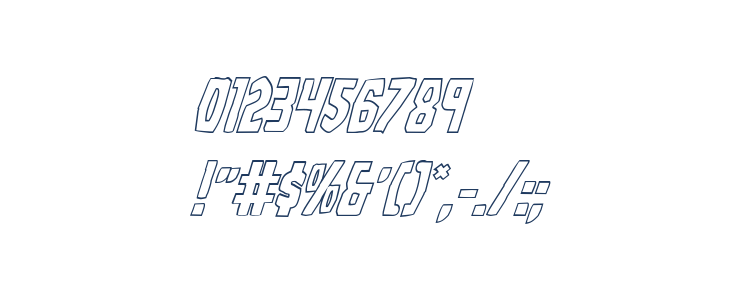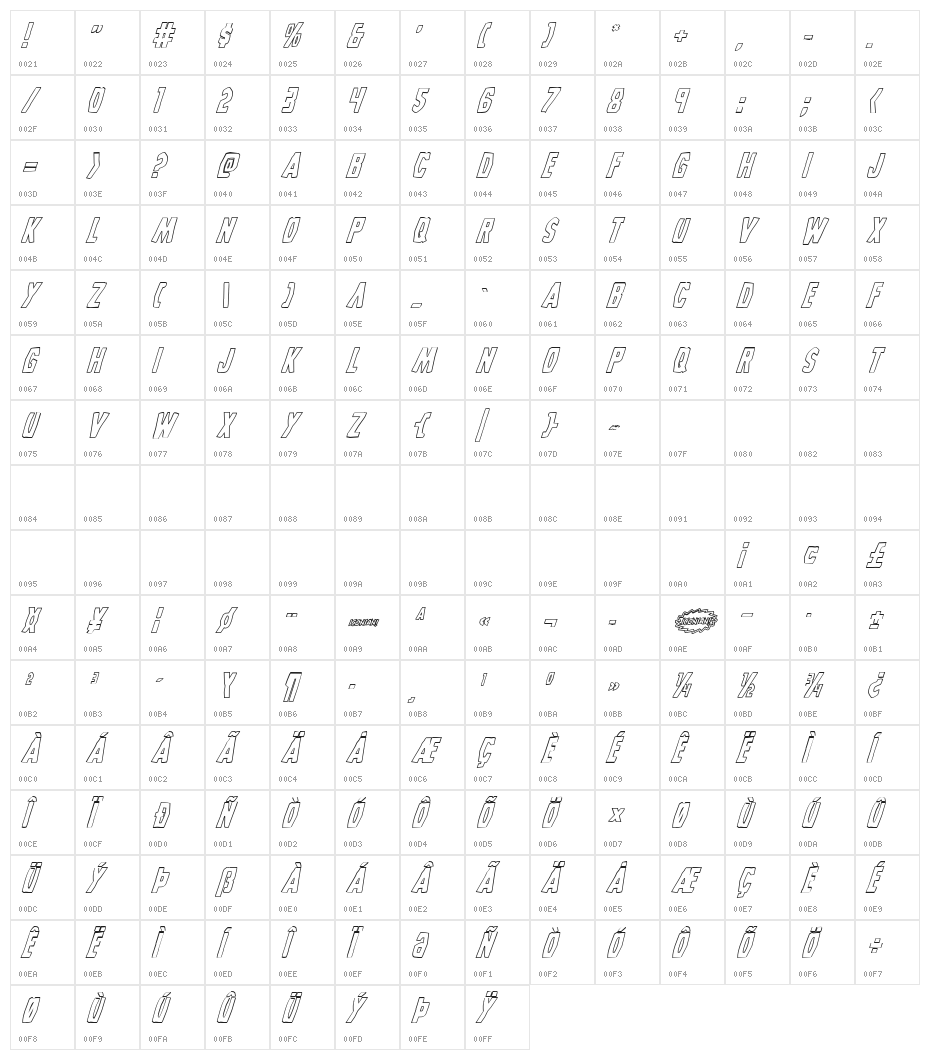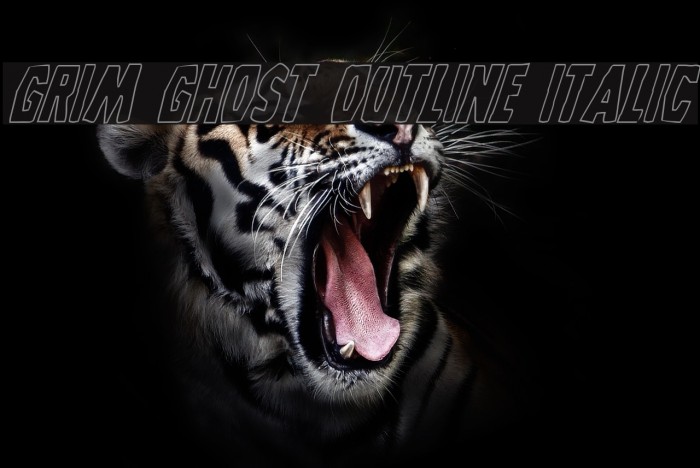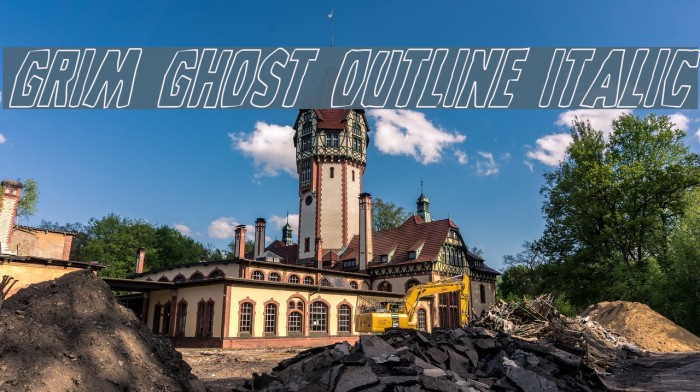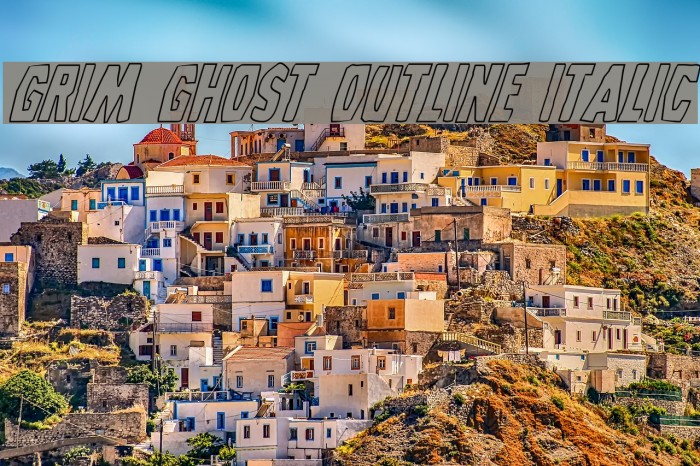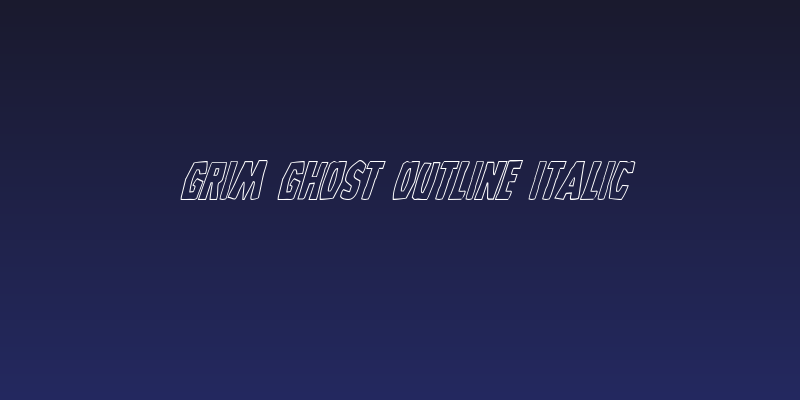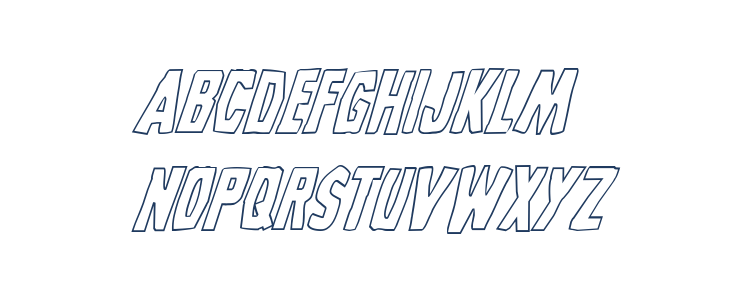
Grim Ghost Outline Italic Font
Grim Ghost Outline Italic Description
This font features a bold, outlined style with a distinct italic slant, giving it a dynamic and energetic appearance. The characters are uppercase and lowercase letters, numbers, and a variety of special symbols. The outline design adds a unique touch, making it stand out in any design project. Its boldness is balanced by the open spaces within each character, providing a sense of lightness despite the strong lines. The italic angle enhances the sense of movement and modernity, making it suitable for eye-catching headlines and creative designs.
| Proposed Projects | Ideal for posters, logos, and headlines where a bold and modern look is desired. |